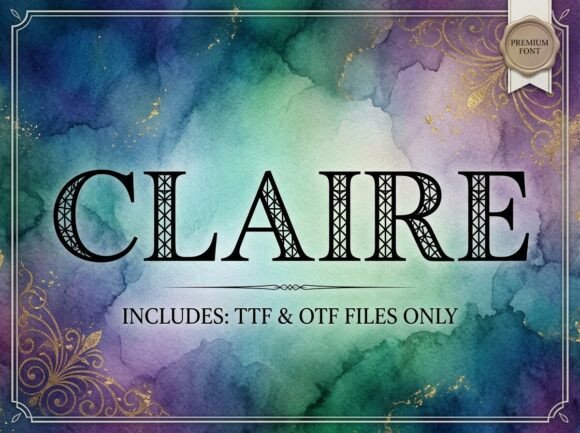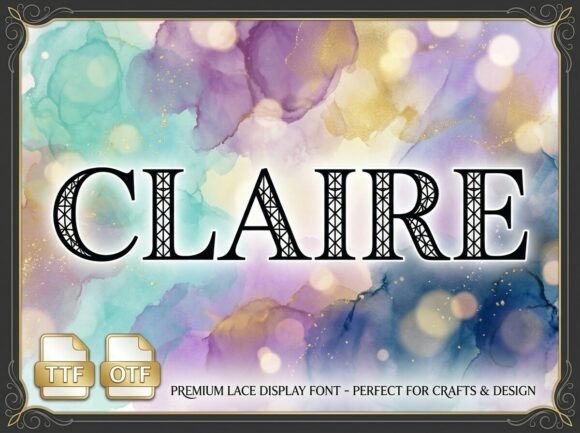
Add a Touch of Delicate Craftsmanship to Your Designs with Claire Font
In the world of typography, few fonts capture the essence of elegance and refinement as beautifully as Claire. This premium display font is inspired by the intricate beauty of vintage lace, bringing a touch of delicate craftsmanship to your designs. With its classic-refinement soul and airy aesthetic, Claire is the perfect choice for designers and crafters looking to add a level of sophistication to their work.
The Inspiration Behind Claire Font
Claire font is a masterful interpretation of the intricate patterns found in vintage lace. The font’s design is characterized by elegant serif letterforms filled with a complex, cross-hatched lattice pattern that mimics the look of artisanal needlework. This unique design element gives Claire its distinctive look and feel, setting it apart from other fonts in the display category.
Key Features of Claire Font
- Elegant Serif Letterforms: Claire’s letterforms are designed with a classic, refined aesthetic that exudes sophistication and luxury.
- Complex Lattice Pattern: The font’s intricate lattice pattern adds a level of depth and visual interest to each letterform, making it perfect for designs that require a touch of elegance.
- Airy Aesthetic: Despite its intricate design, Claire has an airy, open feel that prevents it from feeling too dense or overpowering.
- Classic-Refinement Soul: Claire’s design is rooted in a classic, refined aesthetic that makes it perfect for designs that require a level of sophistication and luxury.
Use Cases for Claire Font
Claire font is a versatile typeface that can be used in a variety of design applications. Some of the most popular use cases for Claire include:
- Boutique Craft Branding: Claire’s elegant, refined aesthetic makes it perfect for boutique craft branding, where a level of sophistication and luxury is required.
- Luxury Wedding Stationery: The font’s intricate lattice pattern and classic-refinement soul make it a popular choice for luxury wedding stationery, where elegance and sophistication are paramount.
- Artisanal Textile Packaging: Claire’s unique design elements make it a great fit for artisanal textile packaging, where a level of craftsmanship and attention to detail is required.
- Sophisticated Shabby-Chic Social Media Headers: Claire’s airy aesthetic and elegant letterforms make it perfect for sophisticated shabby-chic social media headers, where a level of elegance and refinement is required.
Tips for Using Claire Font Effectively
To get the most out of Claire font, here are a few tips to keep in mind:
- Use it as a Display Font: Claire is designed as a display font, so it’s best used in larger sizes where its intricate design elements can shine.
- Pair it with a Simple Font: To create visual interest, pair Claire with a simple font for body text. This will help to create a clear visual hierarchy in your design.
- Experiment with Color: Claire’s lattice pattern makes it a great candidate for experimentation with color. Try using a bold color to add an extra level of visual interest to your design.
Claire font is a premium display font that brings a touch of delicate craftsmanship to your designs. With its elegant serif letterforms, complex lattice pattern, and airy aesthetic, Claire is the perfect choice for designers and crafters looking to add a level of sophistication to their work. Whether you’re working on boutique craft branding, luxury wedding stationery, artisanal textile packaging, or sophisticated shabby-chic social media headers, Claire font is a versatile typeface that is sure to impress.